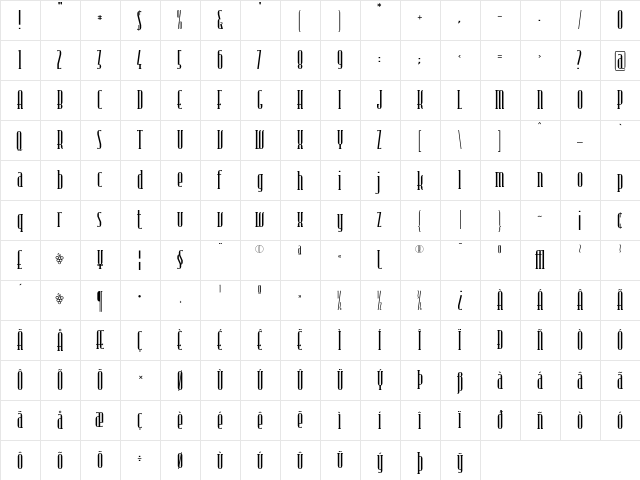
Kniff Regular
Design Context for Kniff Typeface
Kniff is a composed and adaptable typeface that performs quietly and consistently across a wide range of design contexts.